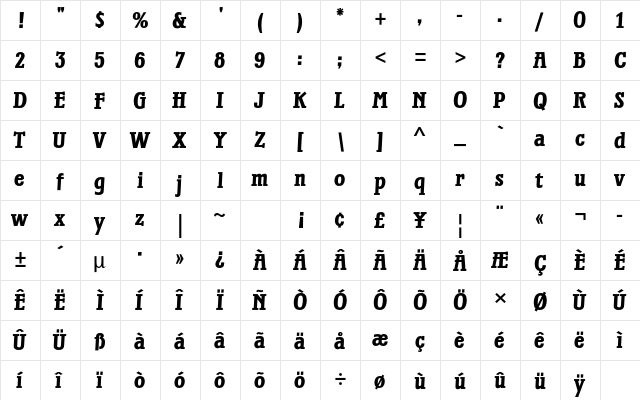
Waterloo Bold Std Regular
| Designer | Alan Meeks |
Design Context for Waterloo Bold Std Typeface
Waterloo Bold Std takes a measured approach to typography — its balanced proportions and neutral character make it a reliable workhorse for both digital and print work. Its bold stroke weight gives it real presence on the page.